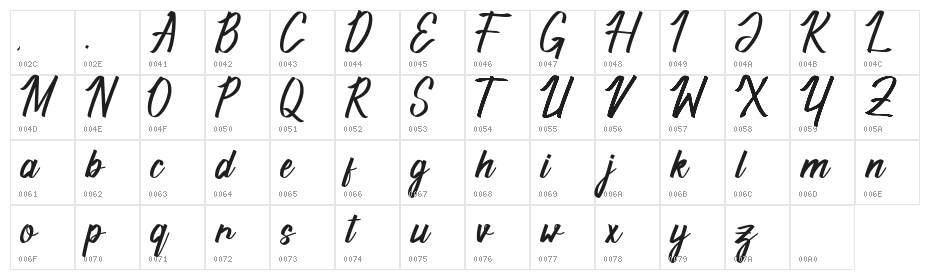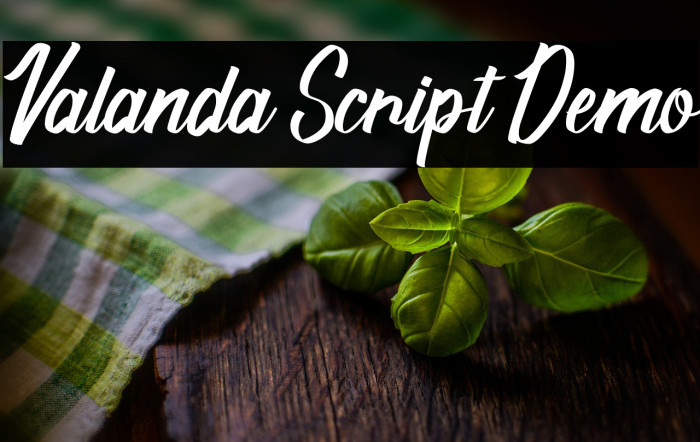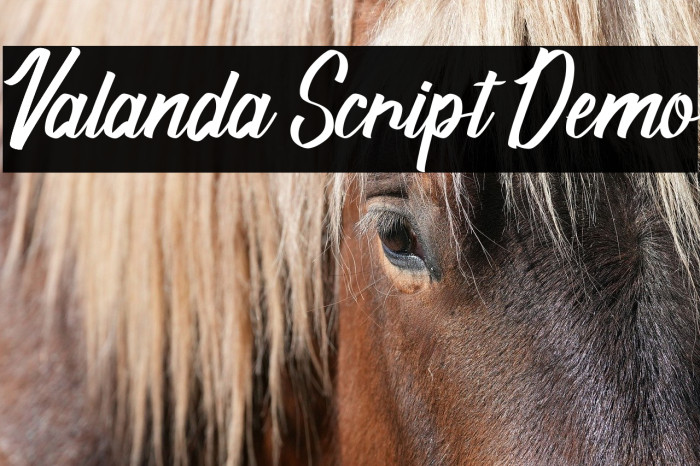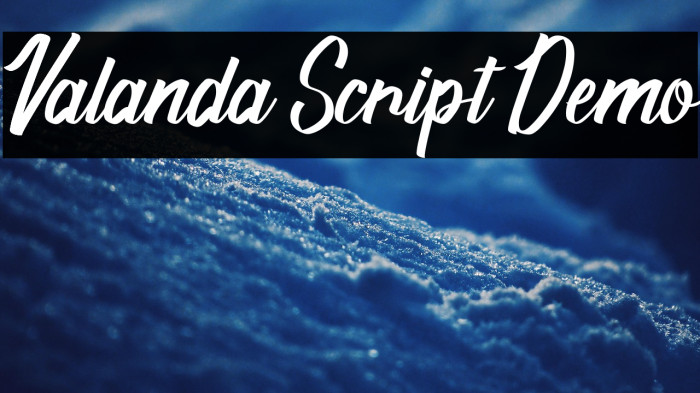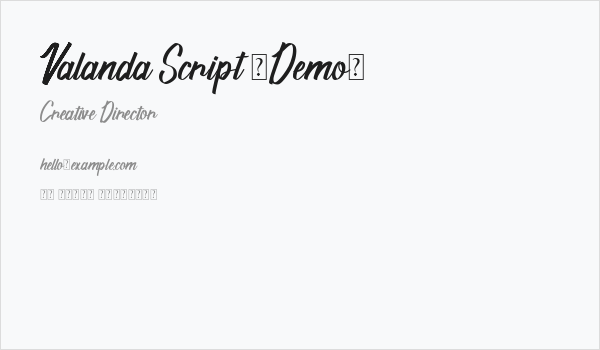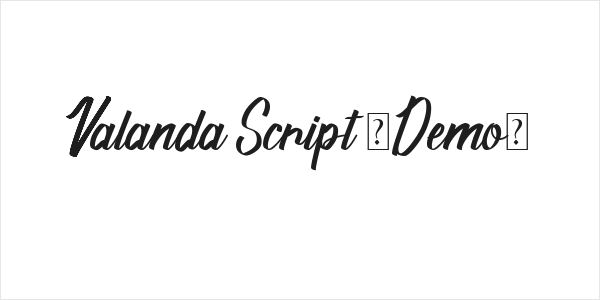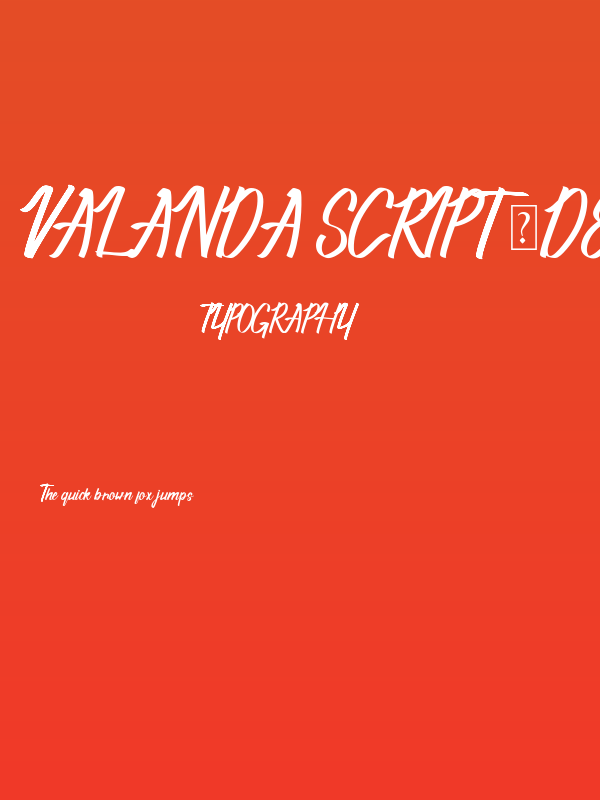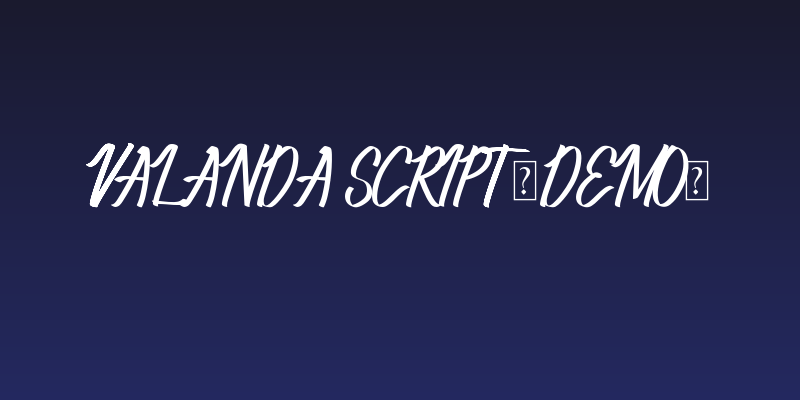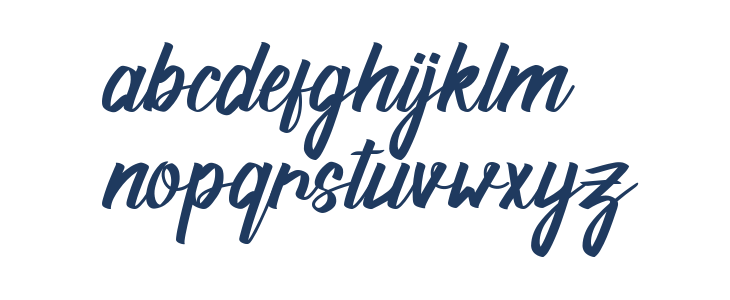
Valanda Script [Demo] Font
Valanda Script [Demo] Description
This font features a dynamic and flowing script style, characterized by its elegant and fluid letterforms. The uppercase letters are bold and sweeping, with a sense of movement that adds a touch of sophistication. The lowercase letters maintain a consistent flow, with smooth curves and connected strokes that enhance readability while preserving the script's artistic flair. The font's overall appearance is both stylish and expressive, making it suitable for creative and decorative applications. Its bold presence and unique character make it stand out, yet it remains legible and versatile.
| Proposed Projects | Ideal for wedding invitations, branding, greeting cards, and artistic projects. |